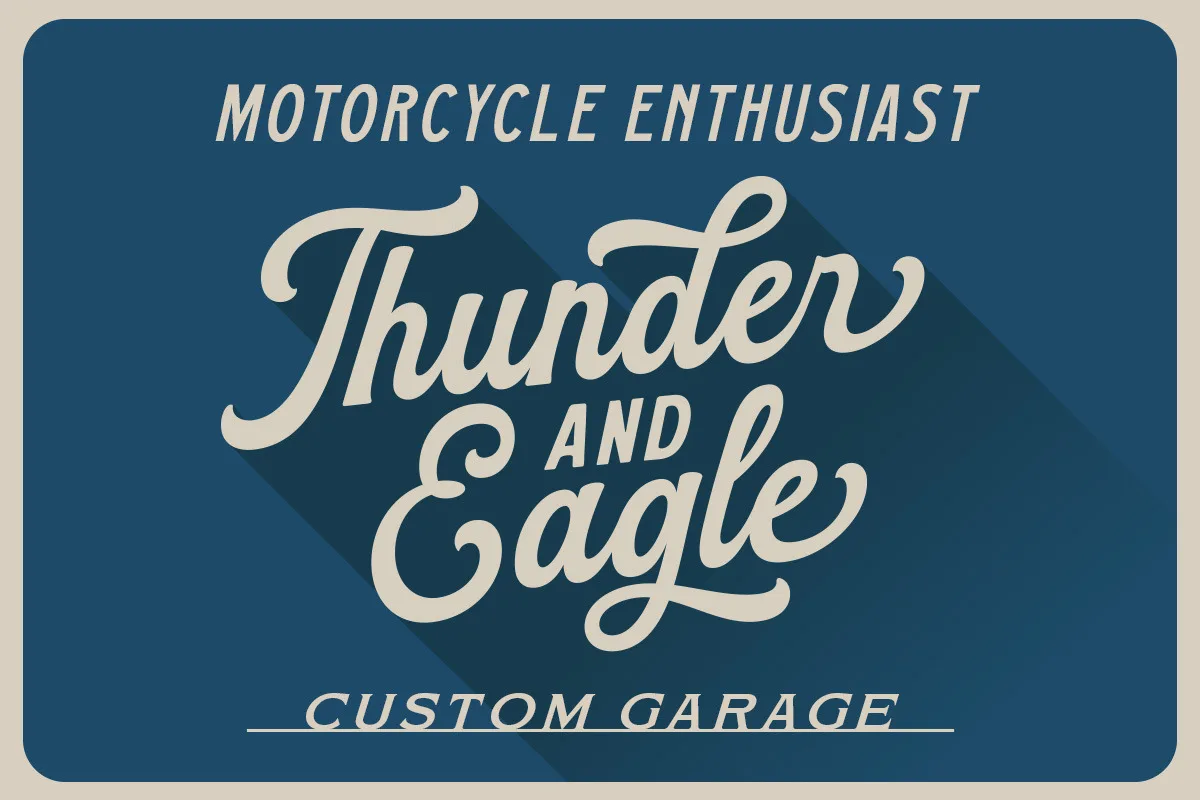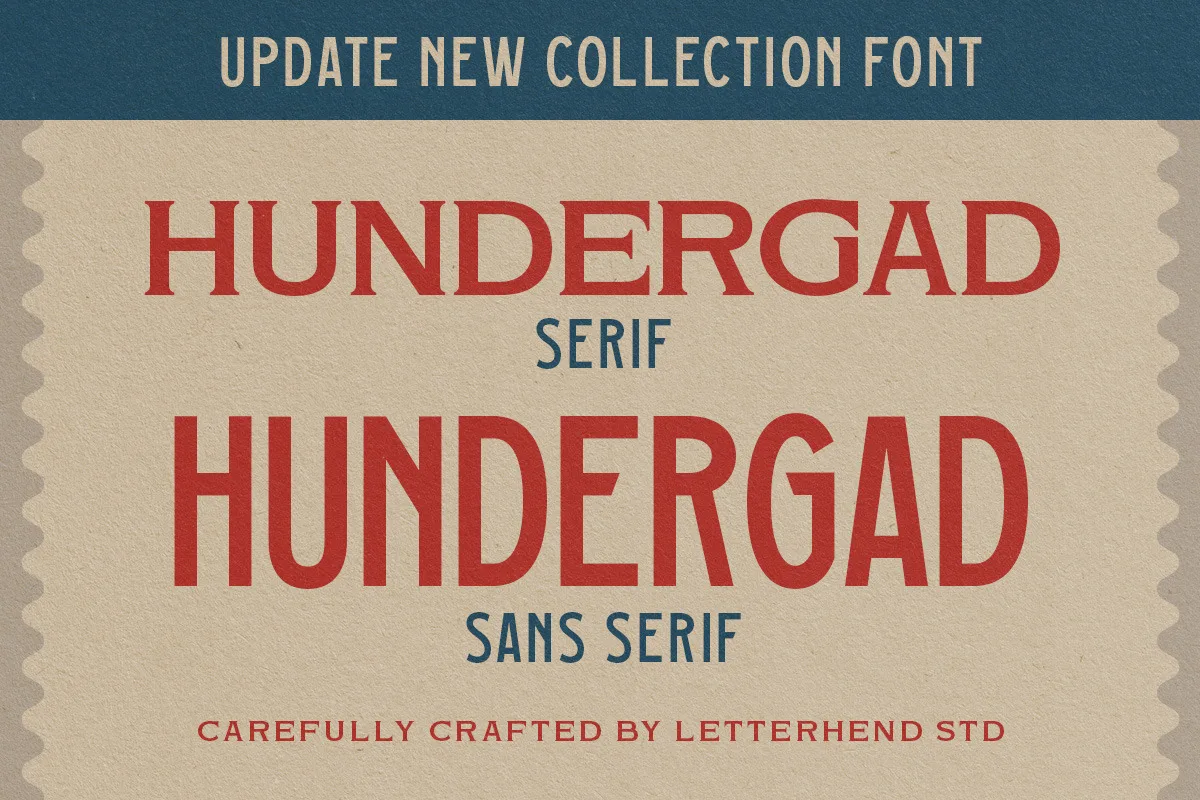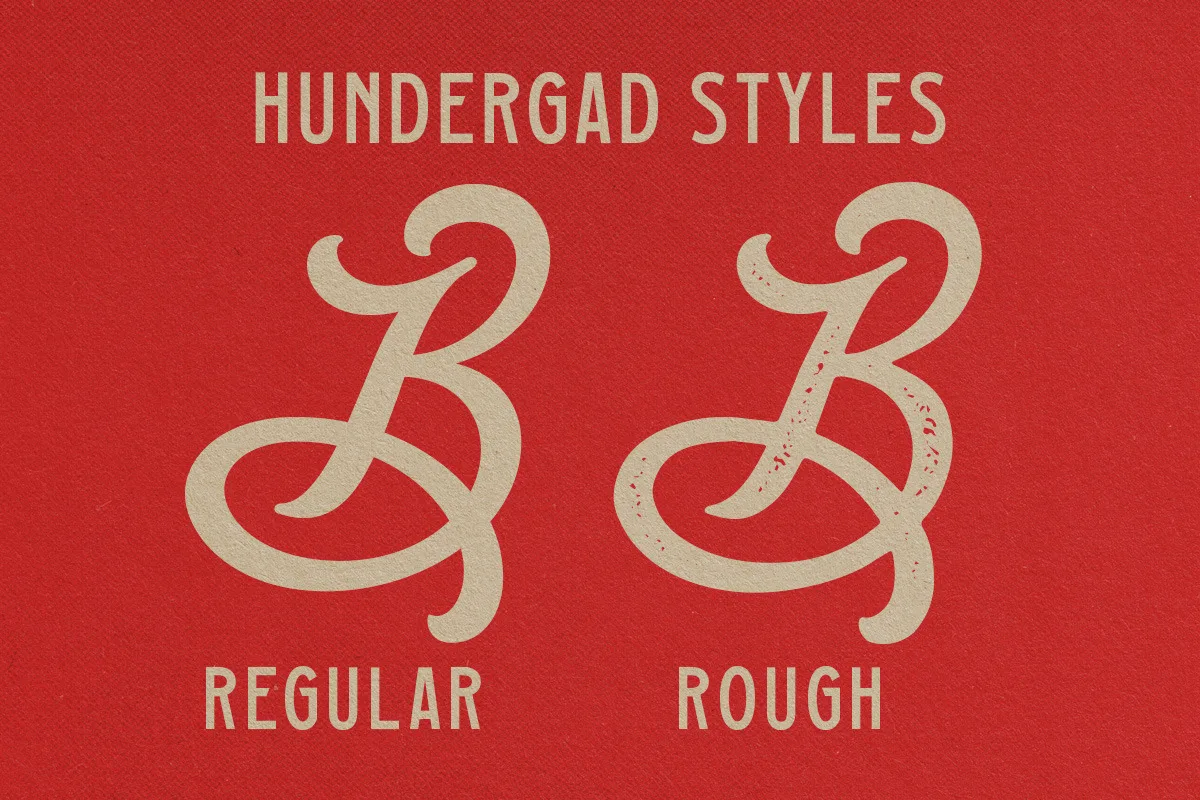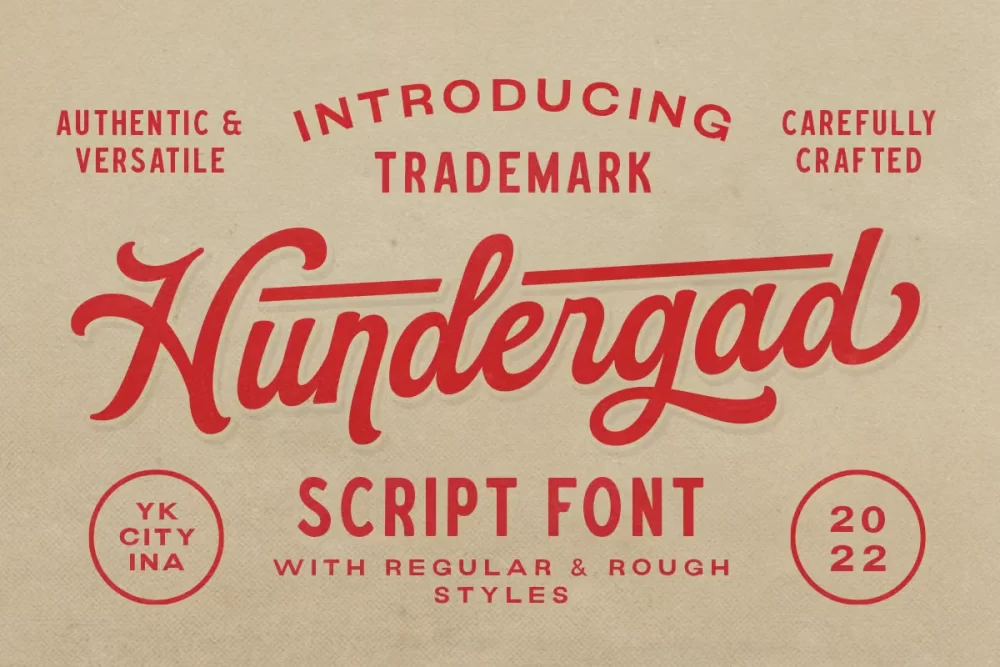
Hundergad is a script font with vintage look and feel. This font perfectly made to be applied especially in logo, and the other various formal forms such as invitations, labels, logos, magazines, books, greeting / wedding cards, packaging, fashion, make up, stationery, novels, labels or any type of advertising purpose.
- regular & rough
- uppercase & lowercase
- numbers and punctuation
- multilingual
- ligatures
- alternates
- swashes